Fonts for T-Shirt Design: How to Choose the Right Typeface
Fonts play a critical role in T-shirt design. They don’t just display words—they communicate attitude, emotion, and identity. The right typeface can make a T-shirt feel bold, playful, premium, rebellious, or minimal, while the wrong one can weaken even the best concept.
Whether you’re designing T-shirts for a brand, an event, a campaign, or a personal statement, understanding font selection is essential. A well-chosen font improves readability, strengthens the message, and helps your design stand out in a crowded market.
Below are five fonts that work exceptionally well for T-shirt design, each with a distinct personality and best-use case.
1. Rhinos Rocks
Style: Bold, Hand-Drawn, Display
Best for: Streetwear, music merch, youth brands
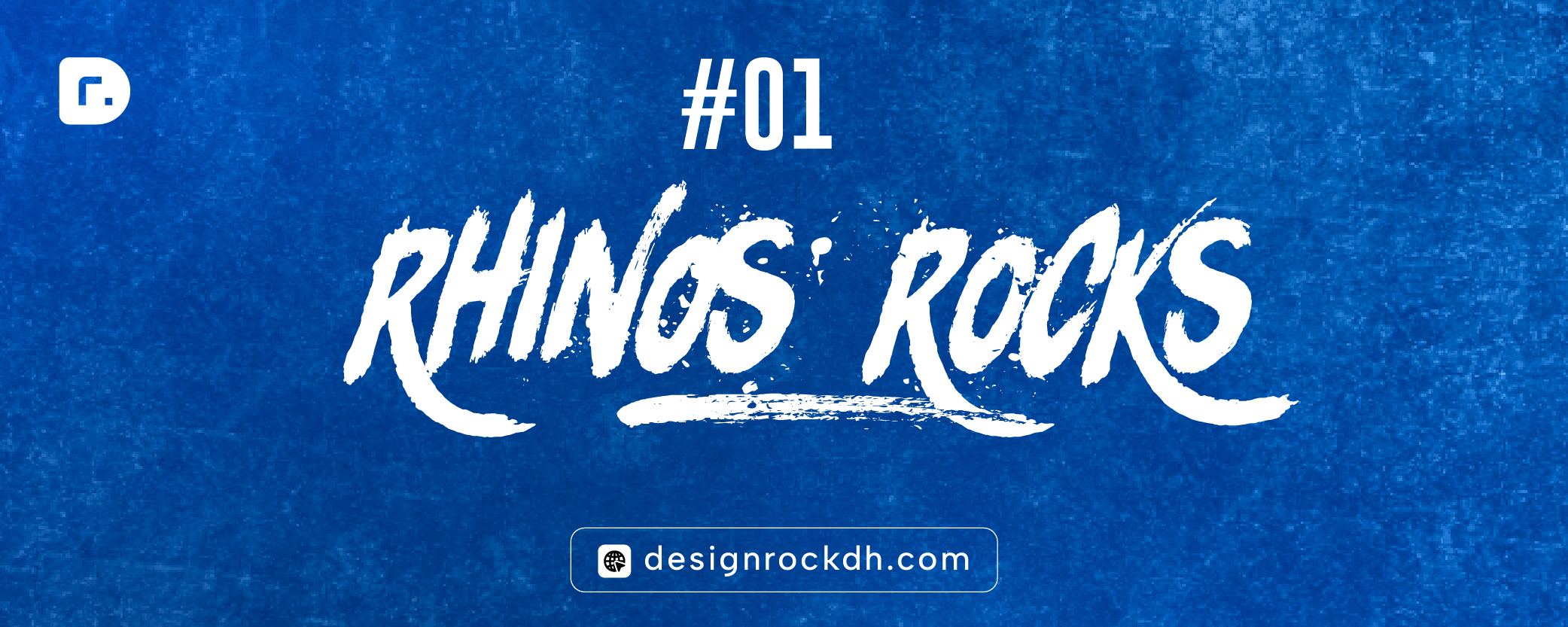
Rhinos Rocks is a high-impact display font with a hand-drawn, rough aesthetic. It feels loud, energetic, and rebellious—perfect for streetwear or graphic-heavy T-shirt designs. The irregular edges add personality and authenticity, making it ideal for statement pieces.
Why it works on T-shirts:
Strong visual presence from a distance
Works well in large sizes
Adds attitude and texture to simple layouts
2. Graun
Style: Serif / Vintage
Best for: Retro designs, lifestyle brands, premium apparel
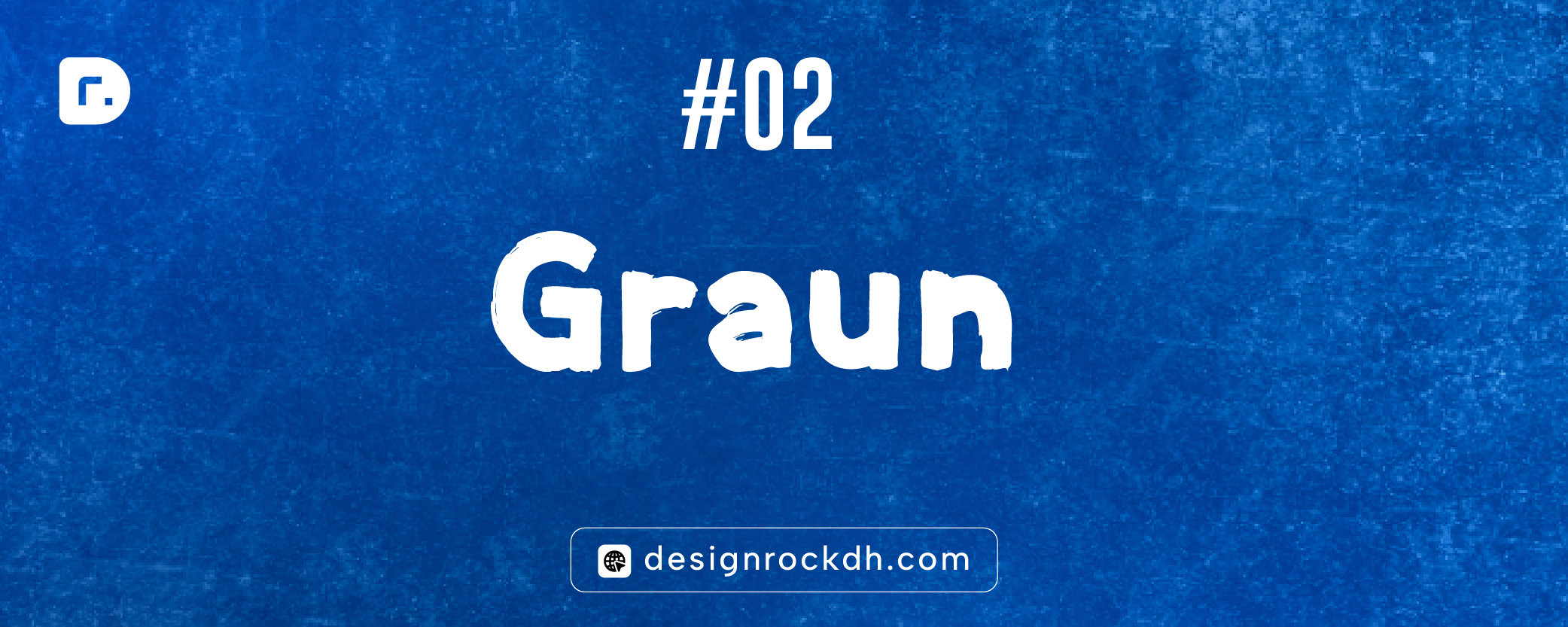
Graun brings a classic, slightly vintage feel that works beautifully for timeless or heritage-inspired T-shirts. Its balanced letterforms feel refined without being boring, making it suitable for brands that want a sophisticated yet approachable look.
Why it works on T-shirts:
Elegant and readable
Perfect for minimal or logo-based designs
Pairs well with simple graphics or badges
3. Dopestyle
Style: Urban / Graffiti-Inspired
Best for: Hip-hop, street culture, expressive designs
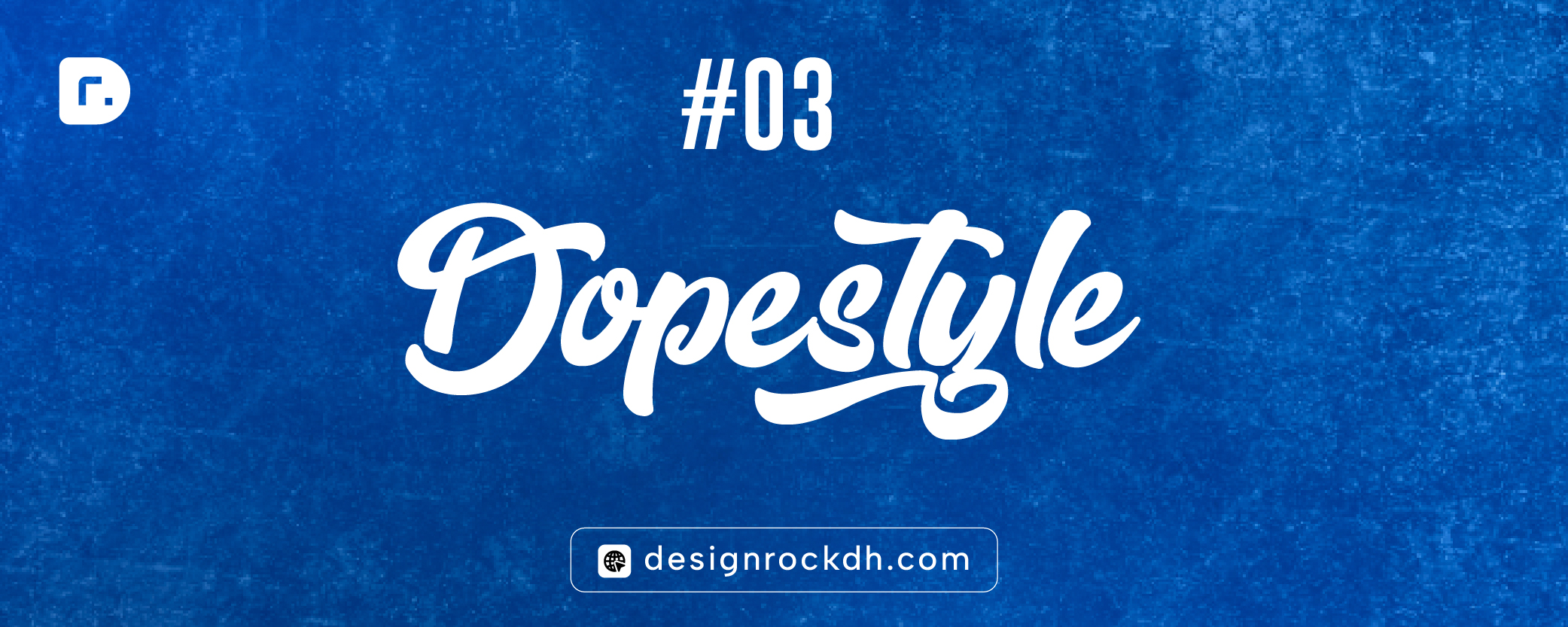
Dopestyle is expressive and raw, inspired by urban typography and graffiti culture. It’s not subtle—and that’s the point. This font is best used when the message itself is bold and unapologetic.
Why it works on T-shirts:
Instantly communicates street culture
Great for slogans and short phrases
Creates a strong emotional impact
4. Agraham
Style: Script / Handwritten
Best for: Personal quotes, fashion brands, artistic designs
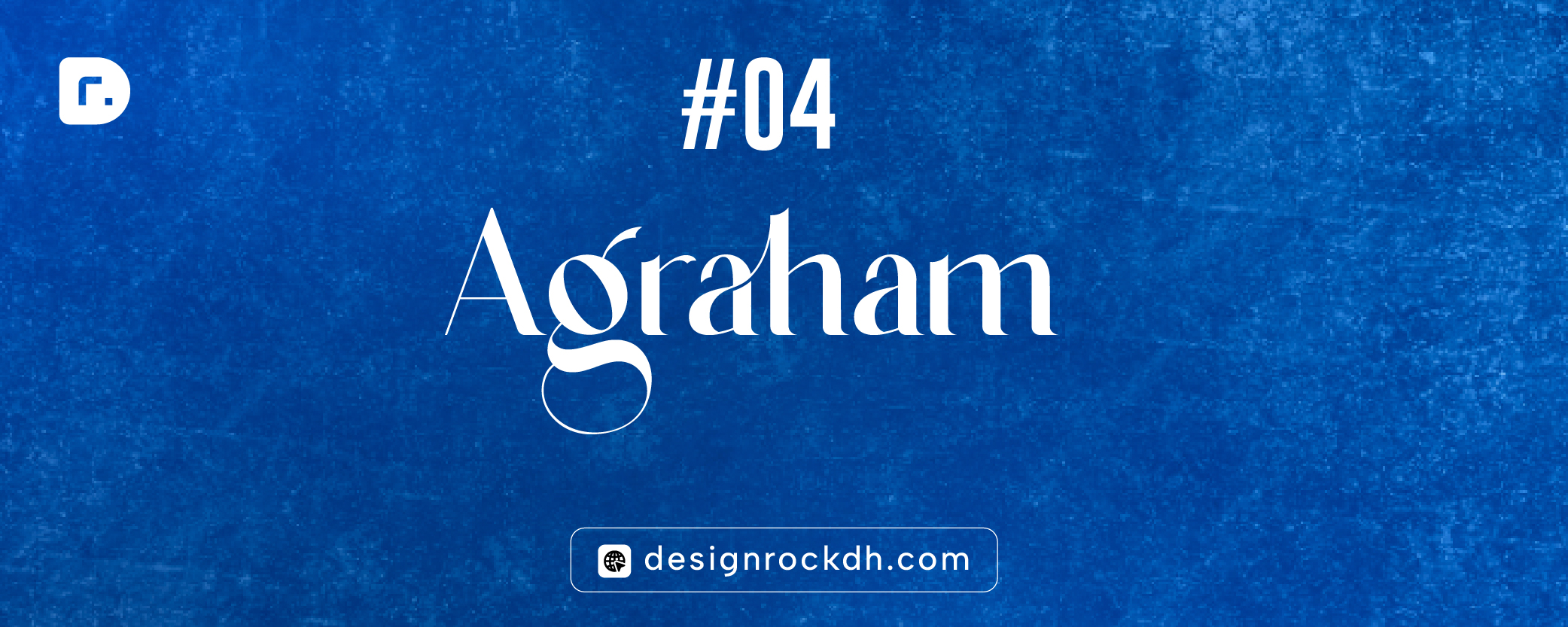
Agraham is a flowing, handwritten script font that adds a personal, human touch. It works well for emotional messages, creative quotes, or fashion-forward designs that need elegance with personality.
Why it works on T-shirts:
Feels authentic and personal
Ideal for signature-style designs
Looks great with minimal graphics
5. Fast-Track
Style: Sans-Serif / Modern
Best for: Sportswear, tech brands, modern graphics
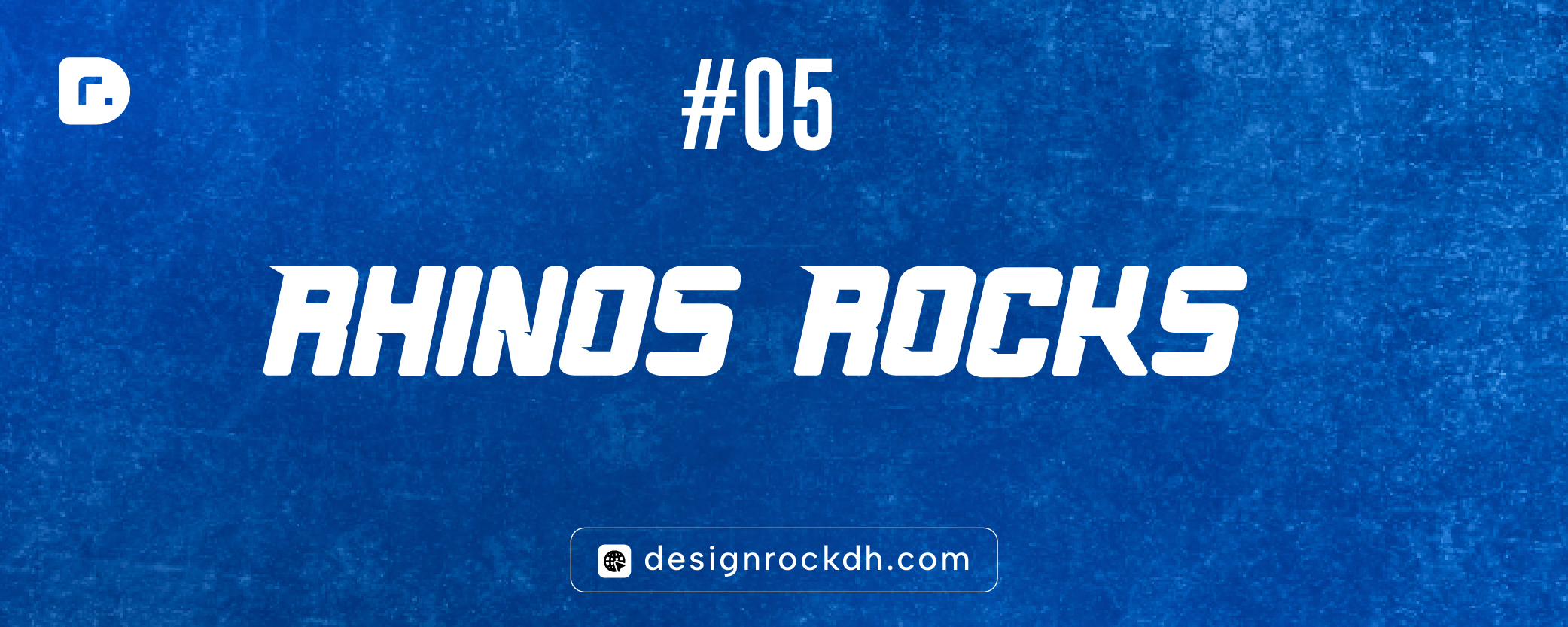
Fast-Track is clean, sharp, and contemporary. It communicates speed, confidence, and professionalism, making it a strong choice for athletic, tech-inspired, or modern T-shirt designs.
Why it works on T-shirts:
Highly readable at all sizes
Works well for both text-only and mixed designs
Suitable for mass production and branding
Choosing the right font for T-shirt design isn’t just a visual decision—it’s a strategic one. The font should match your brand’s voice, target audience, and message. Bold fonts demand attention, script fonts create emotion, and clean sans-serifs deliver clarity.
Before finalizing a design, always test your font on fabric, check readability from a distance, and consider how it aligns with your brand identity. The right font can turn a simple T-shirt into a statement piece.